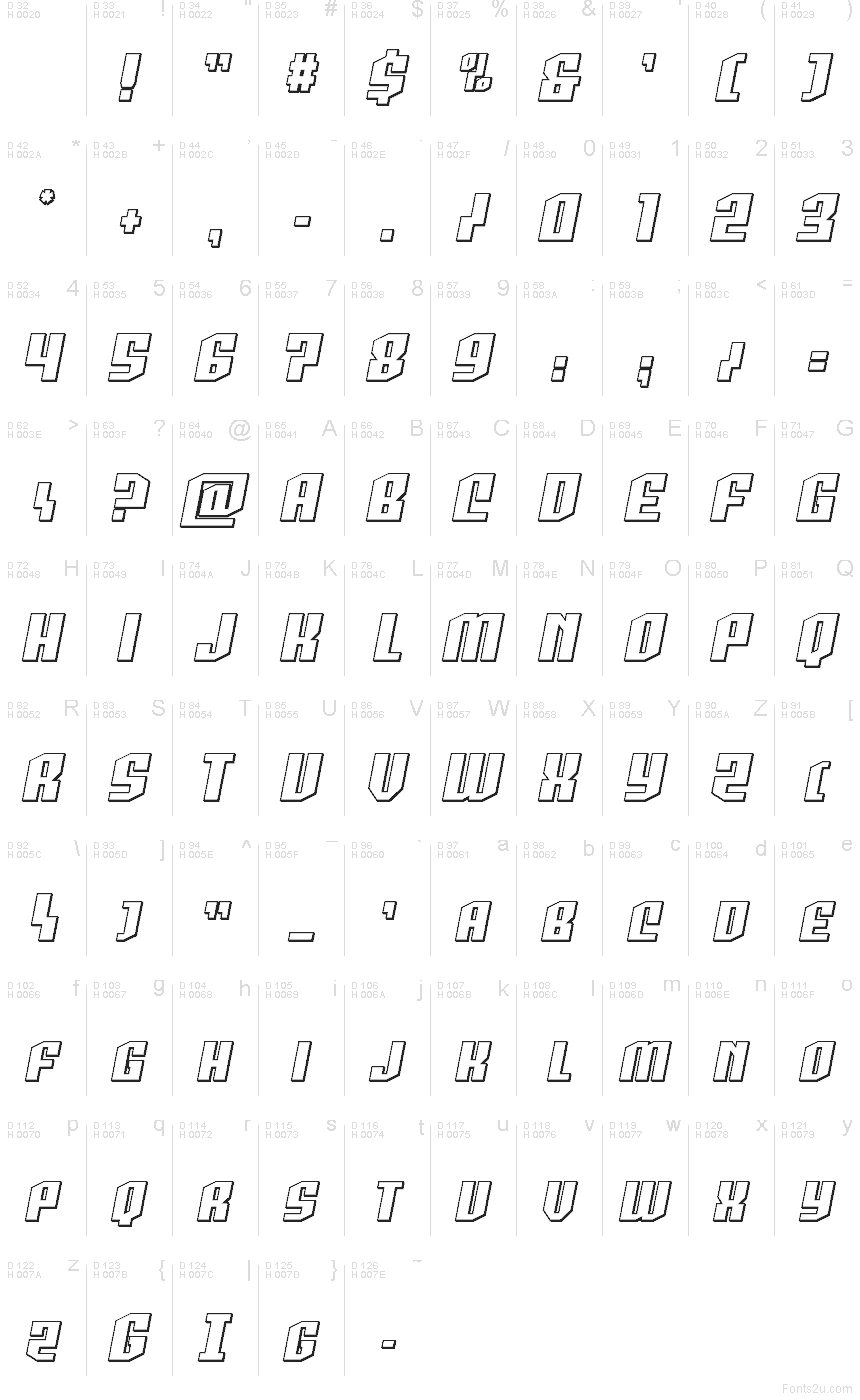
Viper Command 3D Italic
Viper Command 3D Italic font by Daniel Zadorozny of Iconian Fonts is a free techno font, and this typeface in the Viper Command 3D family looks like it’s been cut from armored plating. The hard slant and boxed, 3D-outline construction give every word forward thrust, with crisp corners and a clean, engineered rhythm that reads fast even at a glance.
Using Viper Command 3D Italic on game titles, esports branding, sci‑fi posters, racing graphics, tech event flyers, YouTube thumbnails, and futuristic UI mockups adds instant motion. Set it large so the 3D edges stay punchy, and pair this free font with a quiet geometric sans for supporting text.